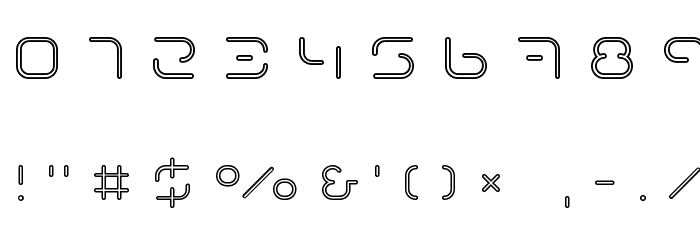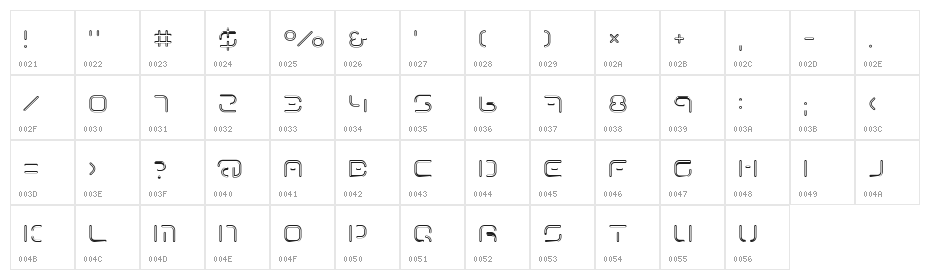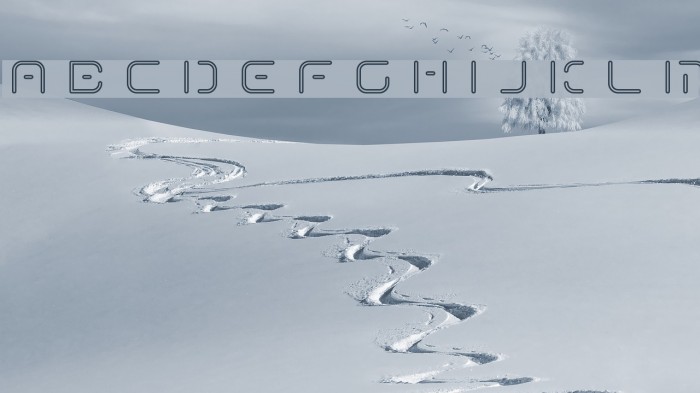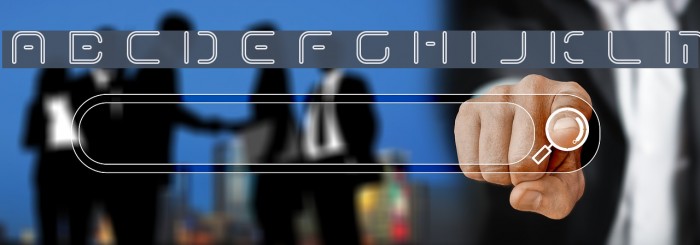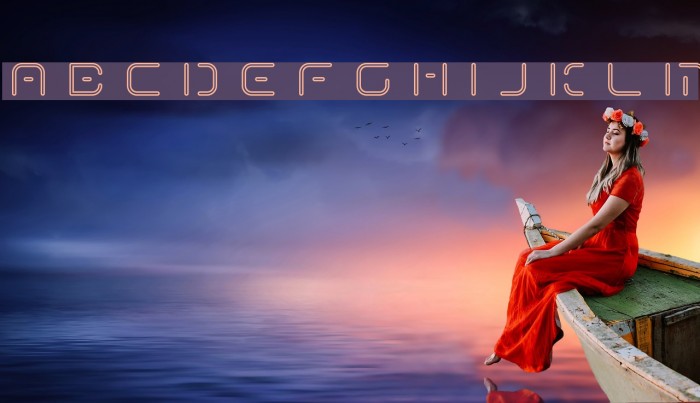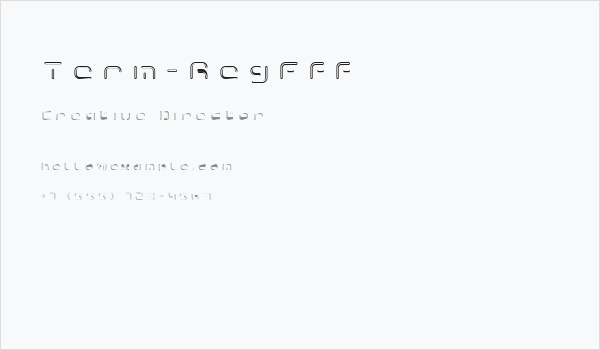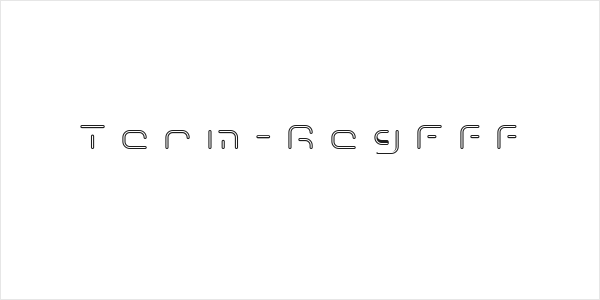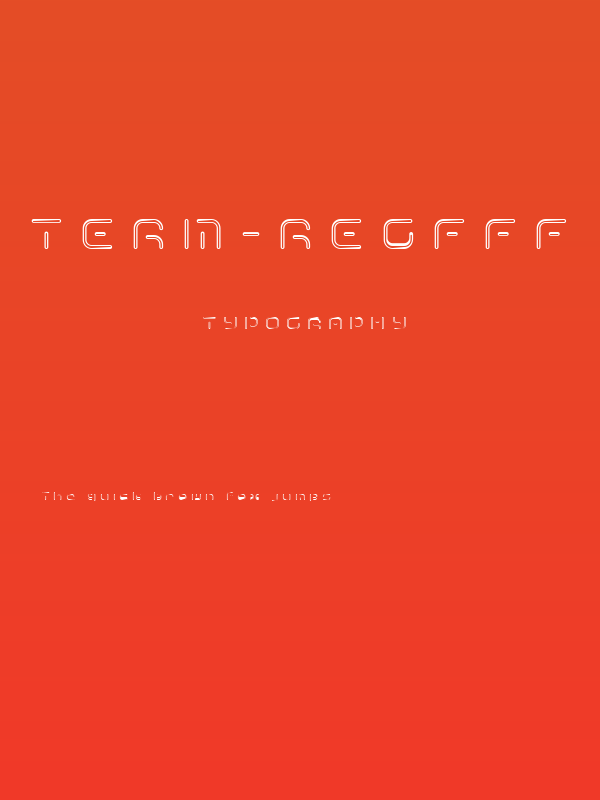
Term-RegFff Font
Term-RegFff Description
This font features a futuristic and minimalist design, characterized by its hollow, geometric shapes and clean lines. Each character is constructed with a consistent stroke width, creating a uniform and cohesive appearance. The font's design is reminiscent of digital or sci-fi themes, with a modern twist that makes it suitable for contemporary applications. The uppercase and lowercase letters maintain a similar style, with subtle variations in form to distinguish them. Numbers and special characters are designed to match the overall aesthetic, ensuring visual harmony across all elements. The font's unique style makes it stand out, while its simplicity ensures readability.